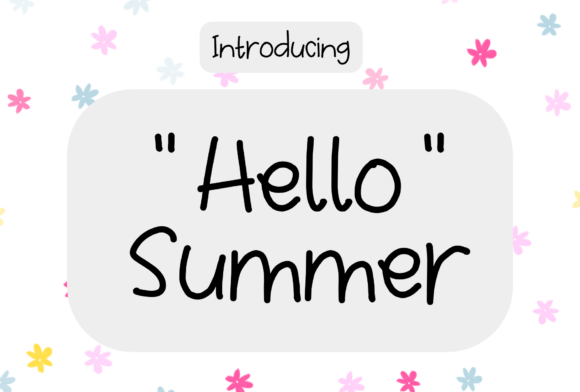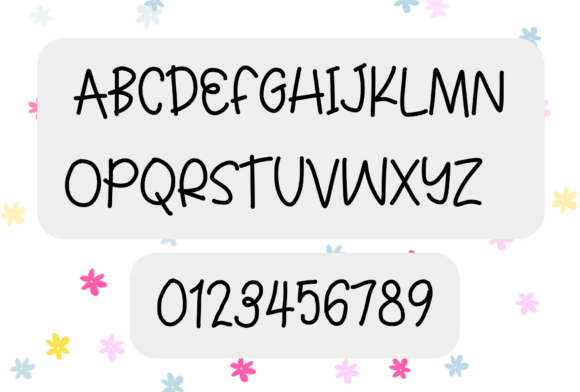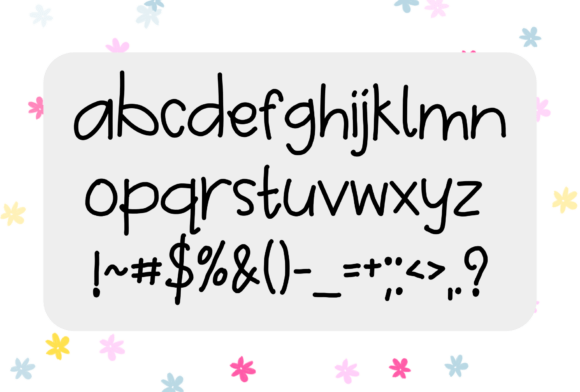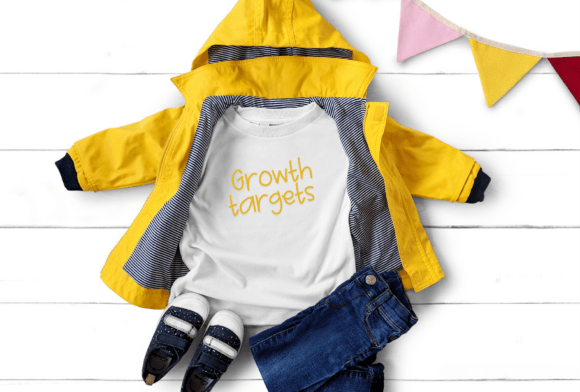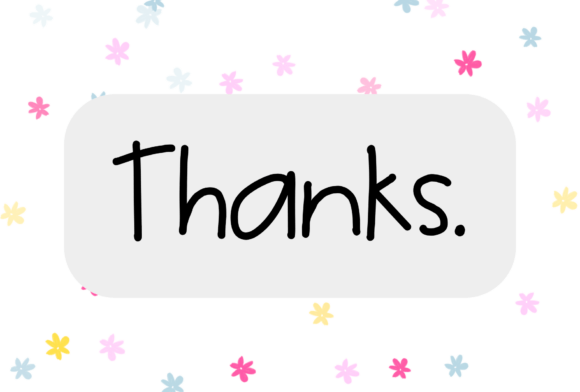
Bringing a Splash of Fun to Your Designs
Remember the excitement of summer vacation as a child? The smell of freshly cut grass, the sound of ice cream trucks, and the feel of warm sunshine on your skin? For designers, capturing that carefree spirit in their work can be just as invigorating. And that’s exactly what the Hello Summer Font does – it brings a playful touch to your designs, making them perfect for teaching, advertising, and illustration.
This super cute handwriting font is designed to be simple, yet effective. Its welcoming style makes it an ideal choice for presentations, posters, and even educational materials. Whether you’re a seasoned designer or just starting out, the Hello Summer Font is a valuable addition to your toolkit. Its versatility and charm make it a must-have for anyone looking to add a personal touch to their work.
Hello Summer Font Key Features
- Unique Characteristics: The font features a unique, hand-drawn style with a relaxed, casual feel, making it perfect for summer-themed projects, such as beach, pool, or vacation designs.
Hello Summer Font Review
I’ve had the chance to play around with the Hello Summer Font, and here’s my honest take on it.
- Casual and Friendly Vibes: The font exudes a carefree, summery feel that’s perfect for beach-inspired designs or kids’ content.
- Legibility: The font is surprisingly easy to read, even at smaller sizes.
- Customization Options: The font comes with a range of weights and styles, giving you plenty of flexibility to experiment with different looks.
- Less Versatile: While great for summer-themed designs, the font might feel restrictive for more formal or professional projects.
- Lack of Distinctiveness: Compared to other fonts, Hello Summer feels somewhat generic and may not stand out in crowded design spaces.
While Hello Summer Font won’t revolutionize the design world, it’s a solid choice for summer-themed projects or anything that needs a lighthearted, casual feel. With its ease of use and customization options, it’s a great addition to any designer’s toolkit.
Tips for Getting the Most Out of the Hello Summer Font
To get the most out of the Hello Summer Font, use it for:
- Summer-themed designs, such as invitations, posters, and social media graphics.
- Beach-inspired designs, such as travel brochures and restaurant menus.
- Outdoor-themed designs, such as park maps and hiking trail signs.